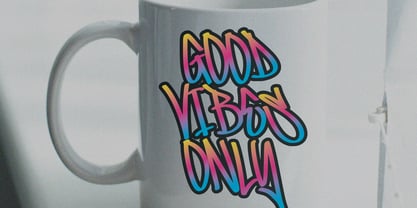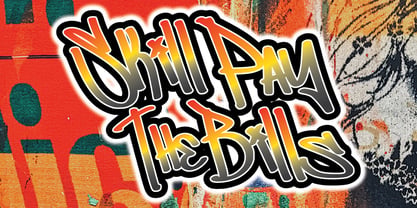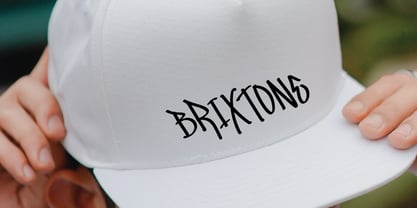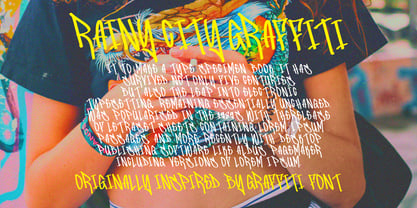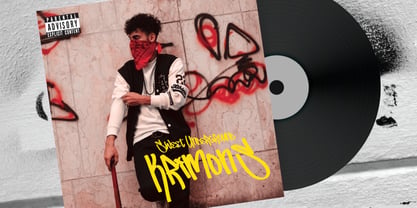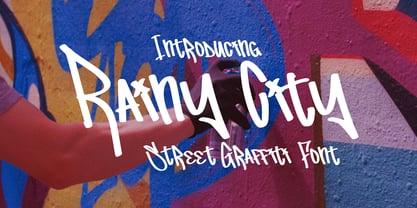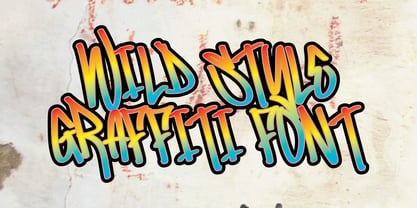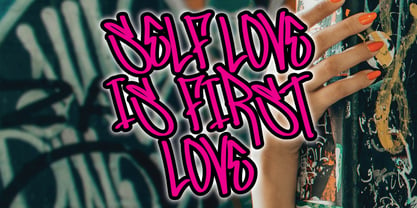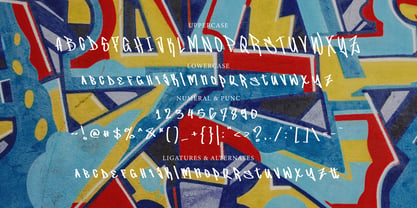
Rainy City Graffiti
by Tebaltipis Studio
The Rainy City Graffiti Font Family was designed by Dzulka Elfira and published by Tebaltipis Studio. Rainy City Graffiti contains 1 styles. More about this family
Bring bold urban energy into your designs with Rainy City Graffiti Font, a street graffiti font inspired by the raw spirit of modern street art. Each letter is crafted with expressive strokes and spontaneous curves, giving the impression of fresh spray paint straight from the city walls. Authentic & Eye-Catching Style Rainy City Graffiti Font delivers a dynamic handwritten look that feels edgy, confident, and full of attitude. It’s designed to stand out and instantly grab attention — perfect for creatives who dare to be different.